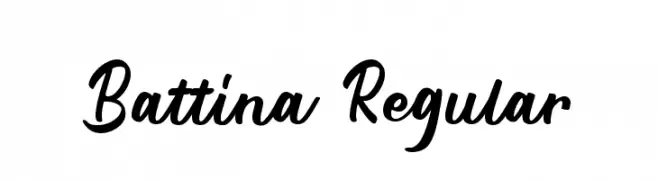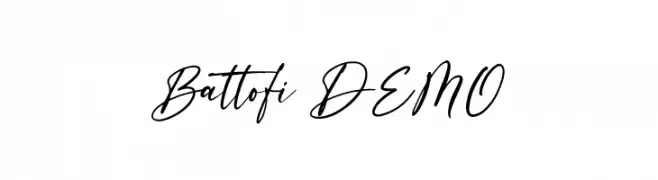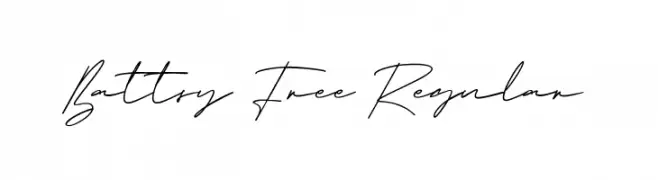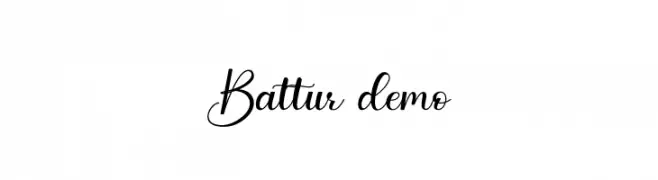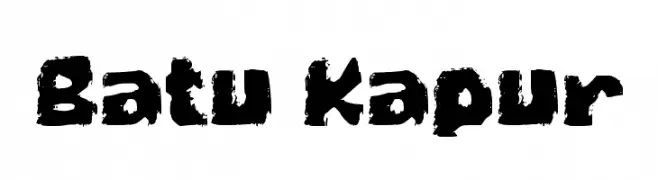
A bold, expressive script font with flowing, cursive letterforms.
An elegant and flowing script font with ornate letterforms and graceful swashes.
A lively and flowing script font with elegant curves and smooth strokes.
A bold, edgy font with sharp, angular lines and a hand-drawn appearance.
An elegant and flowing script font with connected letterforms.
A flowing, cursive script font with elegant loops and swashes.
A fluid, elegant script font with a handwritten aesthetic.
An elegant script font with flowing, cursive letterforms and ornate capitals.
A bold, textured font with a rugged, hand-crafted appearance.